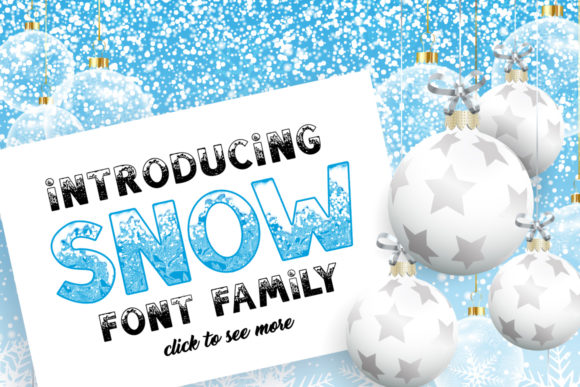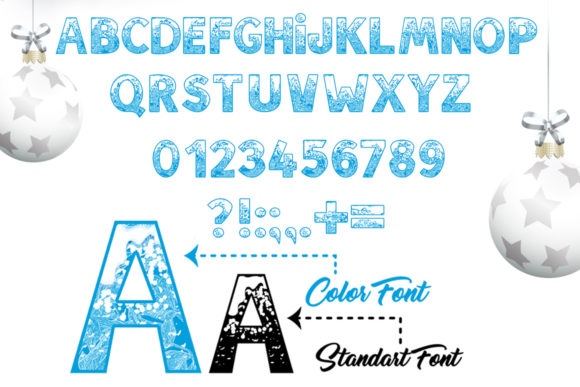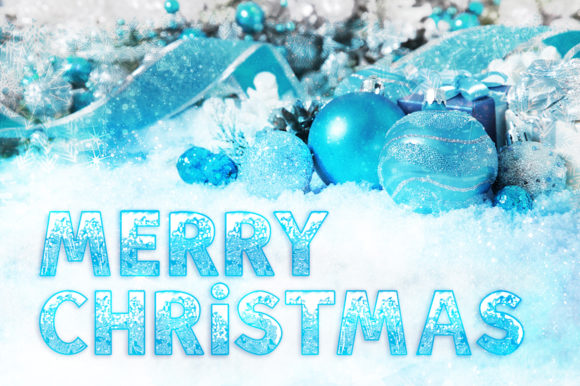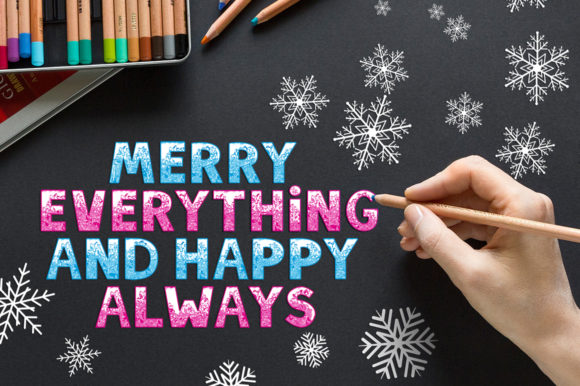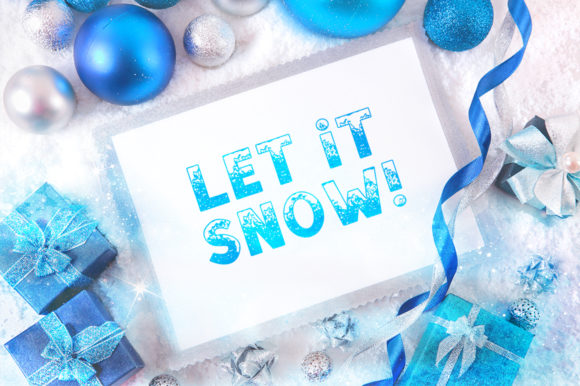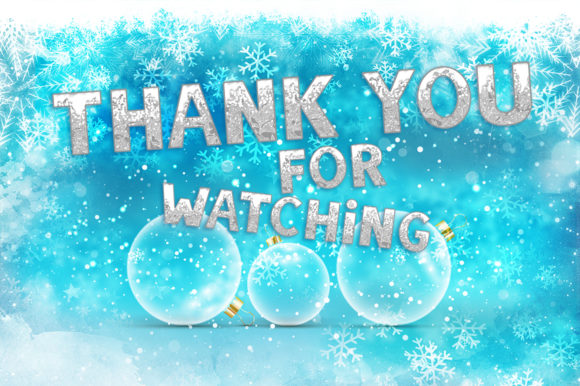
Introduction to Snow Family Font
The Snow is a fun font family with amazing frosty textures.
It’s perfect for your postcards, invitations, cards, backgrounds, posters, flyers, decorations, banners, web design and all that your imagination can create Note.